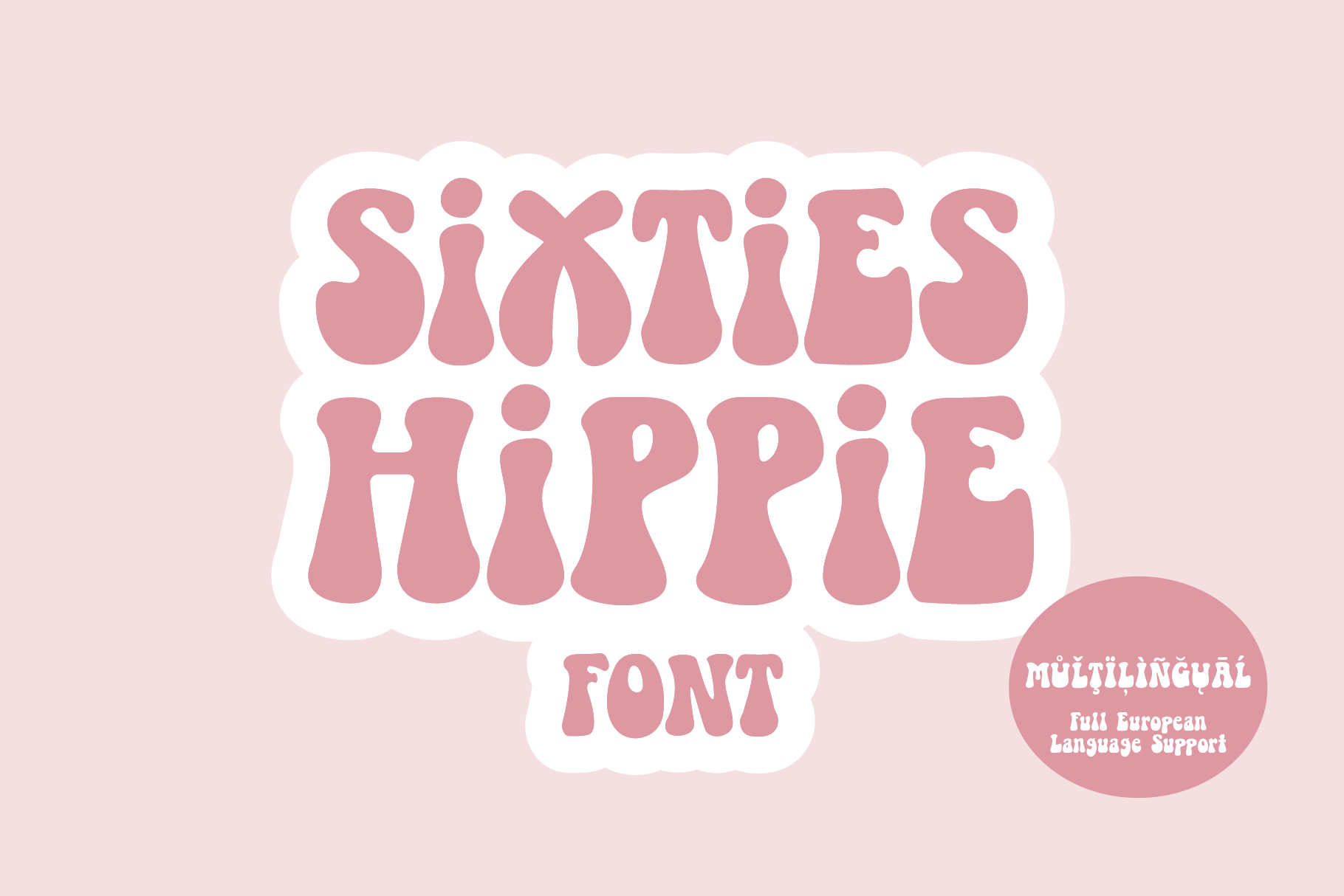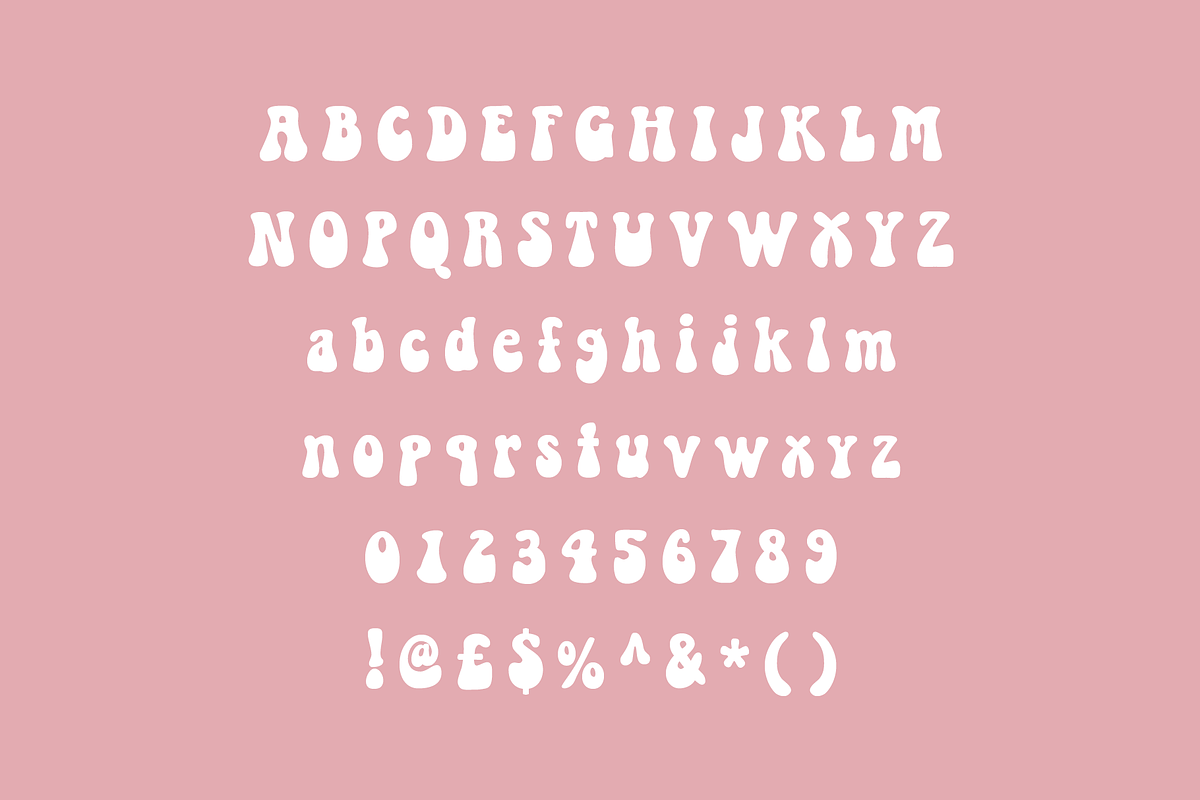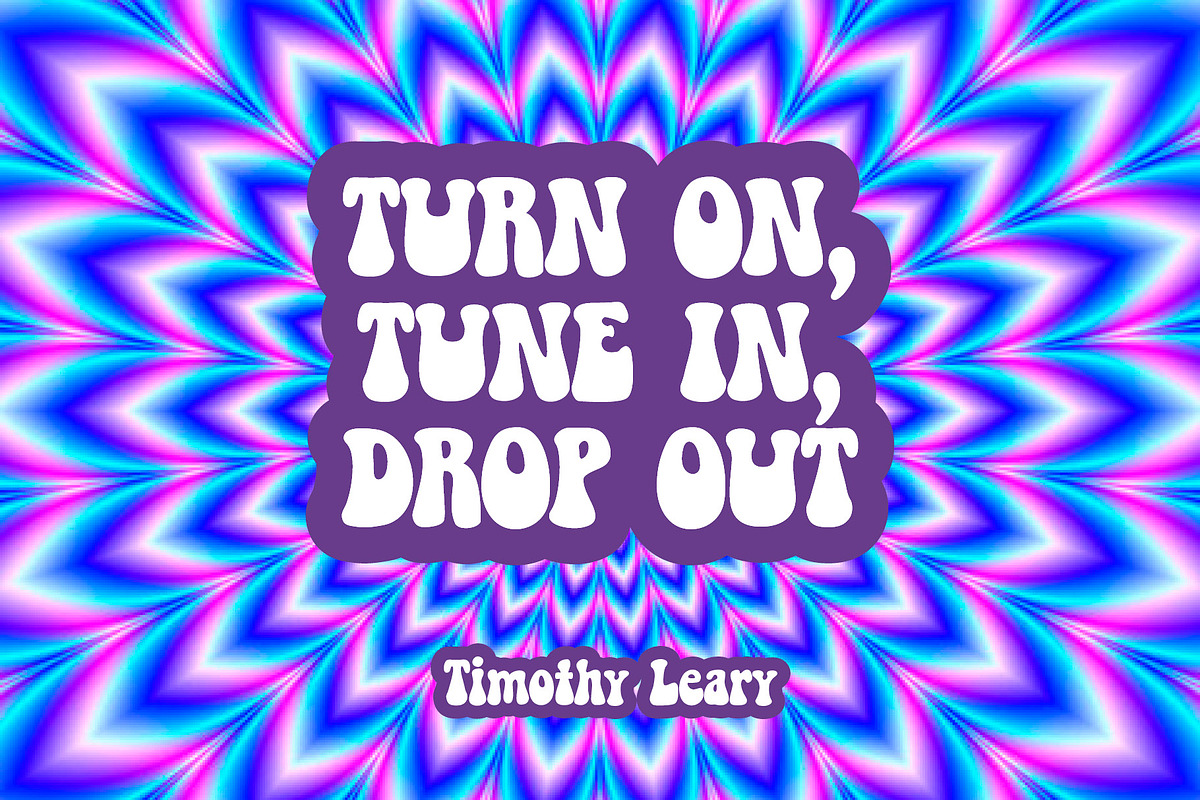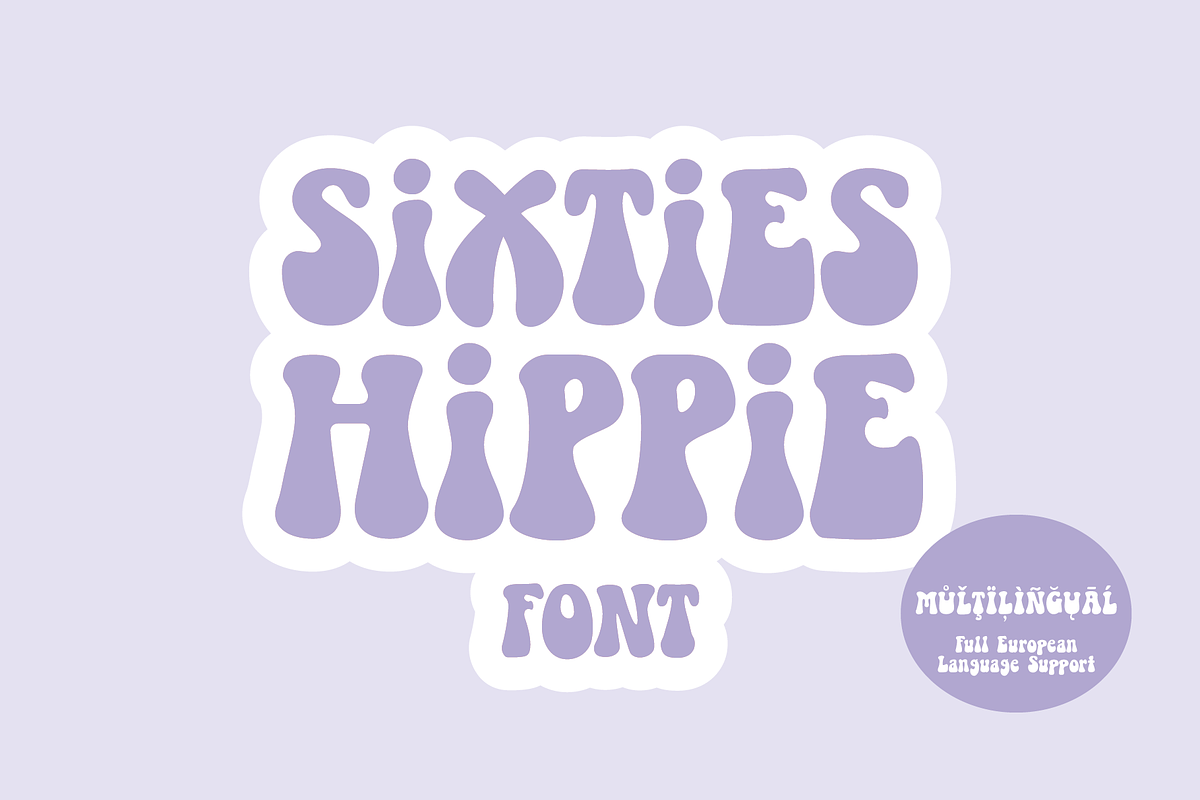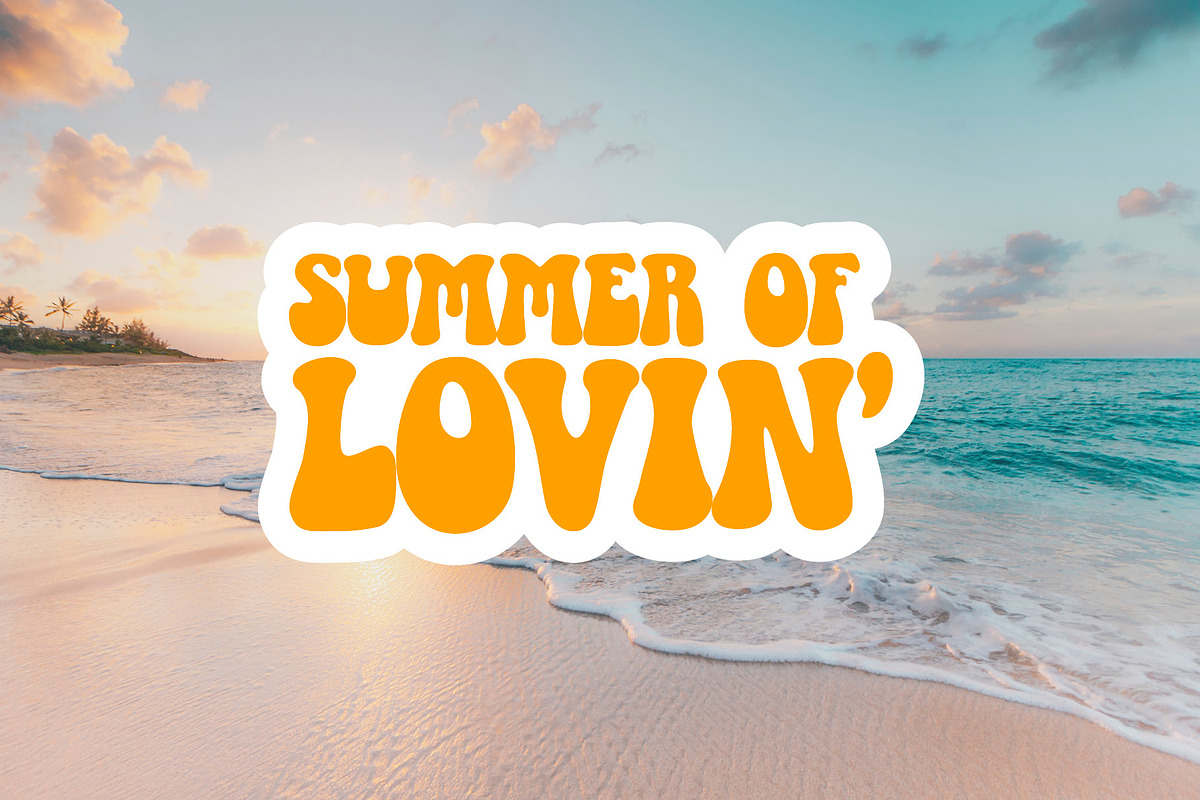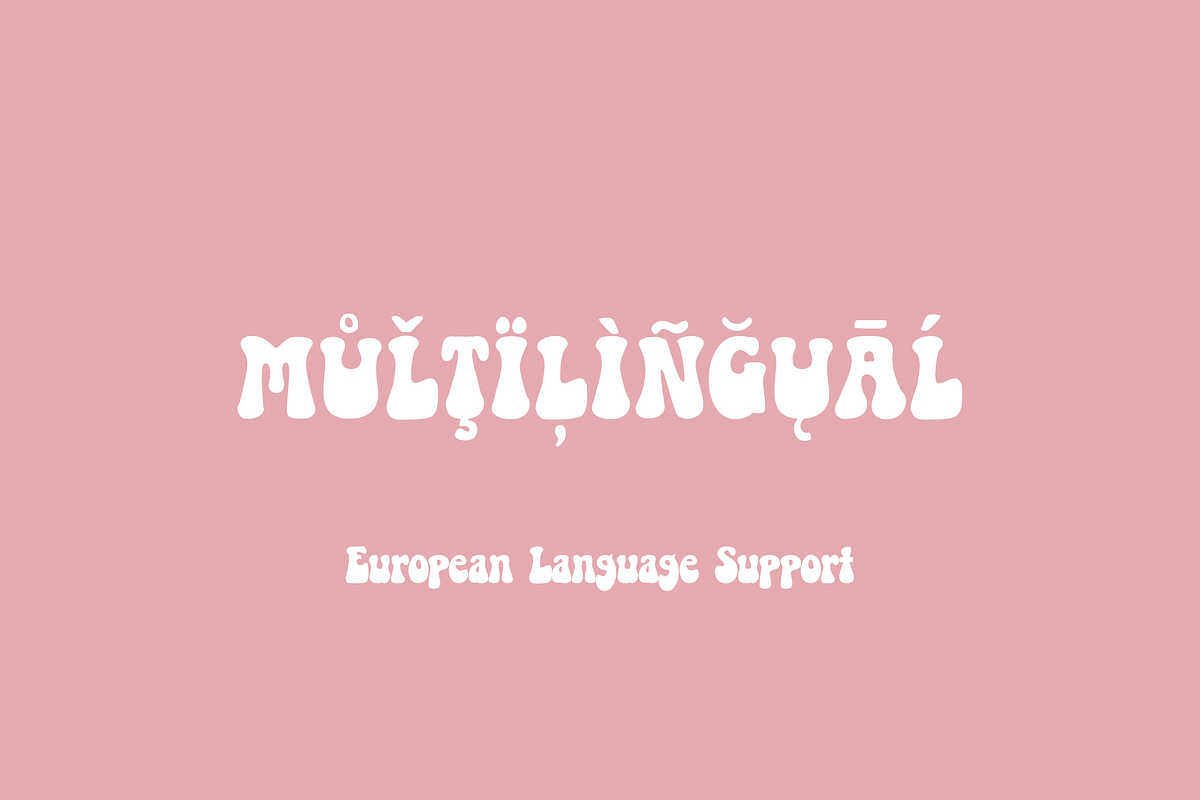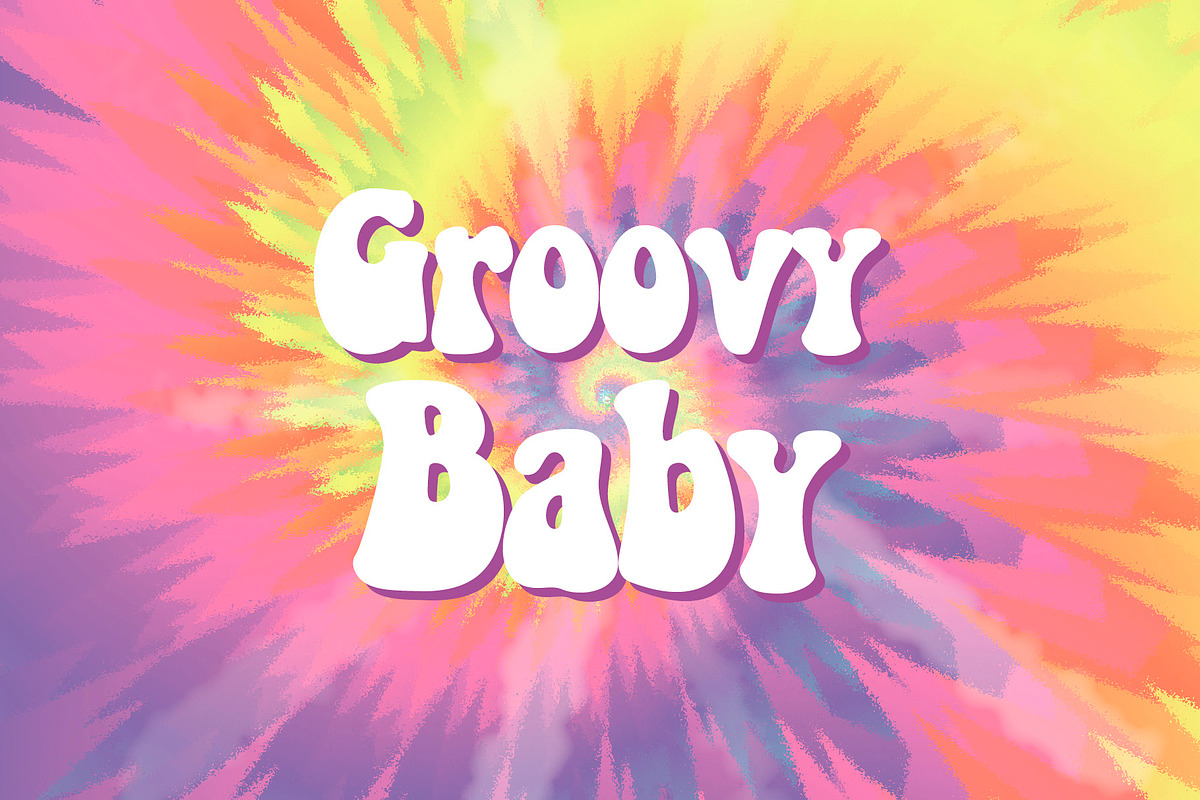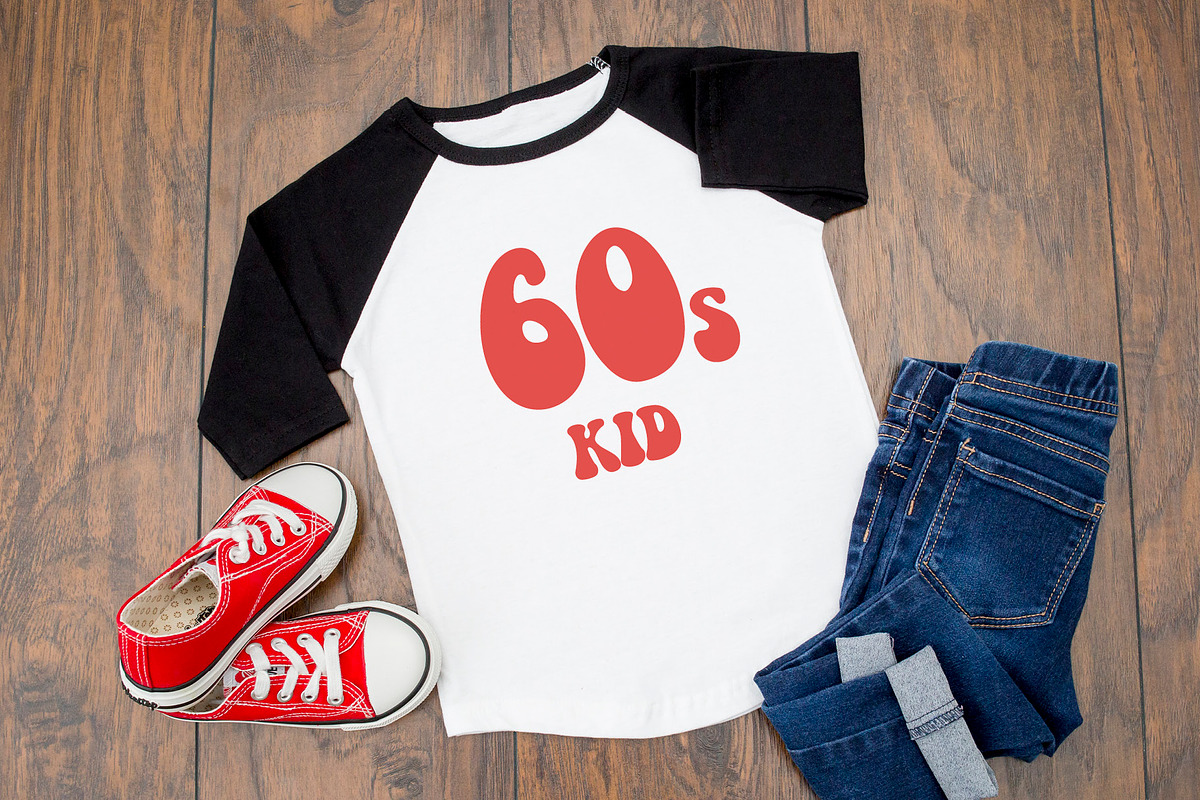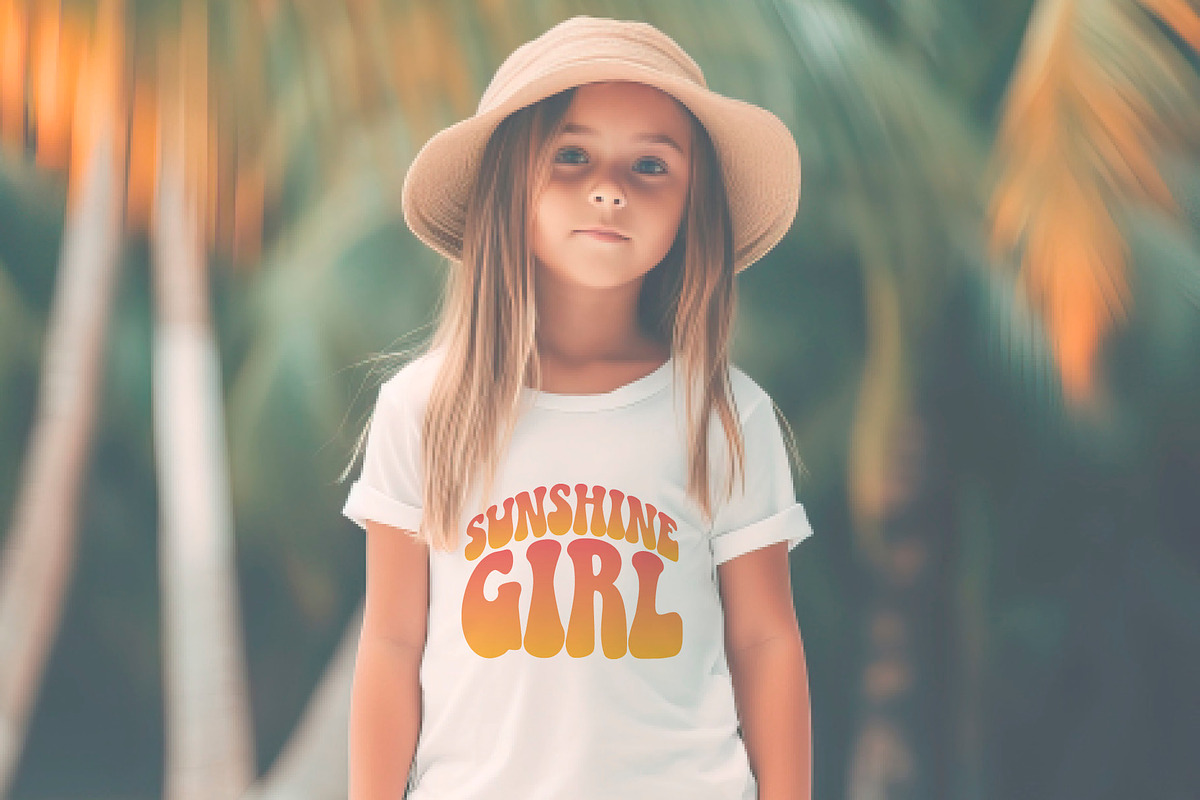
The best Sixties Hippie Font
Sixties Hippie Font | a groovy hippy 60s retro font!
The best hippie font, the best sixties font, the best retro font! A wonderfully warm, vintage font perfect for psychedelic and groovy designs!
This font is great for adding a touch of retro inspired fun to your designs. It works great when warped into waves (using your preferred software) or simply arching or arcing words. BUT... if you can't do that, this groovy font looks amazing as it is!
A super retro font for t-shirt designs, mug designs ...or whatever else you are creating or crafting.
It's bold, it's fun ...it's the best Sixties Hippie Font out there!
This is the perfect font for creating wavy text in a groovy swirly pattern. You can use this font in Photopea (free online software) to create wavy text, wavy words or wavy messages! Or, if you have your own specialist software (like Adobe Illustrator) you can use that.
Also, this is an extensive font with all major European glyphs included so you guys across Europe are not left out!
Playful and strong, you can create a real impact with this psychedelic groovy font. Perfect for kids and children's items yet cool and unique for an older demographic on all products. It has loads of character! The best groovy font there is.
Complete with uppercase, lowercase and special characters. Includes the full European character set including western, central and south eastern glyphs. This great vintage font comes in file formats including... OTF (66kb) TTF (109kb) and WOFF (40kb).